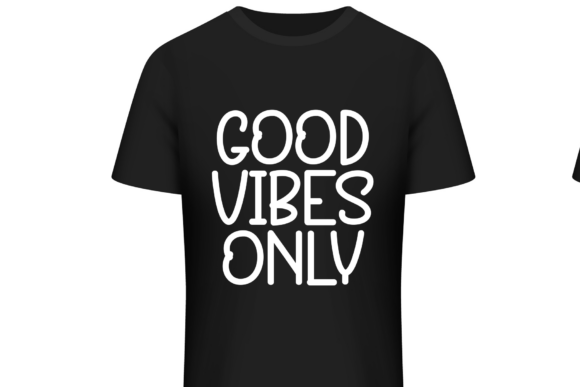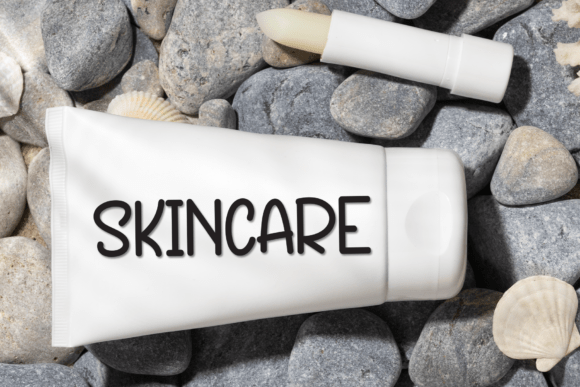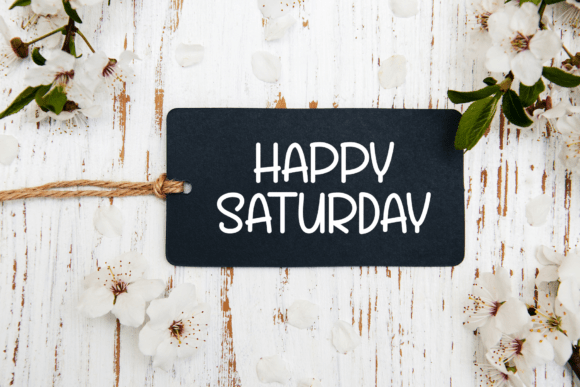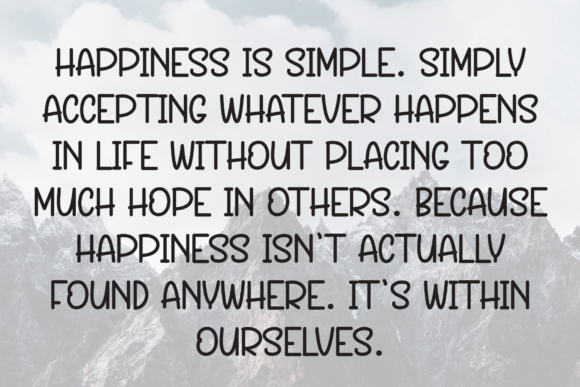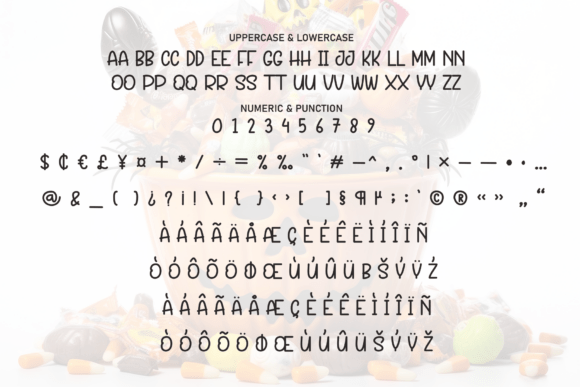
Candy Halloween Font: The Perfect Blend of Simplicity and Friendliness
Are you looking for a font that can add a touch of warmth and approachability to your designs? Look no further than the Candy Halloween Font. This casual and neat display font is perfect for designers and crafters who want to create stunning visuals that capture the essence of modern handwritten typography. In this article, we’ll dive into the features and benefits of the Candy Halloween Font, and explore how it can elevate your branding, headlines, packaging, and digital content.
A Font that Combines Simplicity with Friendliness
The Candy Halloween Font is a masterful blend of simplicity and friendliness. Its clean lines, balanced letterforms, and subtle rounded edges create a polished finish that’s both modern and approachable. This font is perfect for designers who want to add a touch of warmth and personality to their designs, without sacrificing clarity and legibility. Whether you’re creating a brand identity, designing a headline, or crafting a digital product, the Candy Halloween Font is an excellent choice.
Key Features of the Candy Halloween Font
- Clean Lines: The Candy Halloween Font features clean lines that give it a crisp and modern look.
- Balanced Letterforms: The font’s balanced letterforms ensure that each character is proportionate and visually appealing.
- Subtle Rounded Edges: The subtle rounded edges add a touch of friendliness and approachability to the font.
- Polished Finish: The font’s polished finish gives it a professional and sophisticated look.
Ideal for Branding, Headlines, Packaging, and Digital Content
The Candy Halloween Font is a versatile font that can be used in a variety of design applications. Its warm and inviting style makes it perfect for:
- Branding: Create a strong brand identity with the Candy Halloween Font. Its friendly and approachable vibe makes it perfect for logos, business cards, and other marketing materials.
- Headlines: Add a touch of personality to your headlines with the Candy Halloween Font. Its clean lines and balanced letterforms make it perfect for titles, headings, and subheadings.
- Packaging: The Candy Halloween Font is perfect for packaging design. Its crisp structure and versatile style make it suitable for labels, tags, and other packaging materials.
- Digital Content: Use the Candy Halloween Font to add a touch of warmth and personality to your digital content. Its polished finish and modern look make it perfect for e-books, blogs, and social media graphics.
Benefits of Using the Candy Halloween Font
The Candy Halloween Font offers a range of benefits for designers and crafters. Some of the key benefits include:
- Clarity: The font’s clean lines and balanced letterforms ensure that your text is clear and easy to read.
- Charm: The font’s warm and inviting style adds a touch of charm and personality to your designs.
- Versatility: The Candy Halloween Font is a versatile font that can be used in a variety of design applications.
In conclusion, the Candy Halloween Font is a fantastic choice for designers and crafters who want to add a touch of warmth and personality to their designs. Its clean lines, balanced letterforms, and subtle rounded edges create a polished finish that’s both modern and approachable. With its versatility, clarity, and charm, this font is perfect for branding, headlines, packaging, and digital content. So why wait? Download the Candy Halloween Font today and start creating stunning visuals that capture the essence of modern handwritten typography.
- What is the Candy Halloween Font? The Candy Halloween Font is a casual and neat display font that combines simplicity with a friendly, approachable vibe.
- What design applications is the Candy Halloween Font suitable for? The font is suitable for branding, headlines, packaging, and digital content.